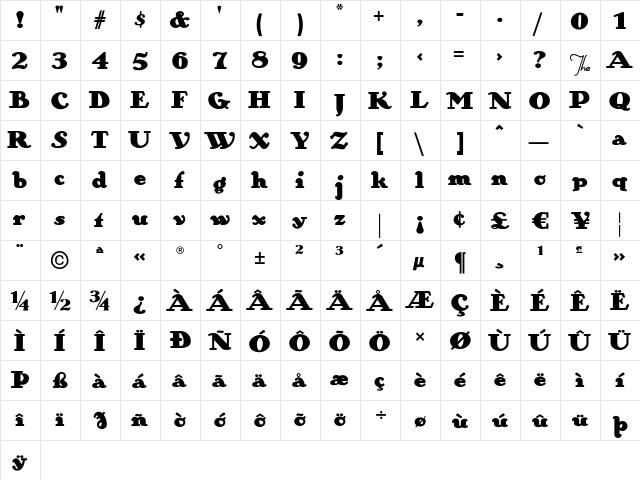
Zinzinnati Regular
Design Context for Zinzinnati Typeface
Zinzinnati is a composed and adaptable typeface that performs quietly and consistently across a wide range of design contexts.